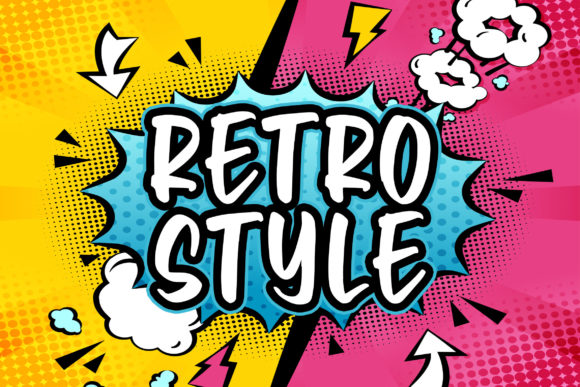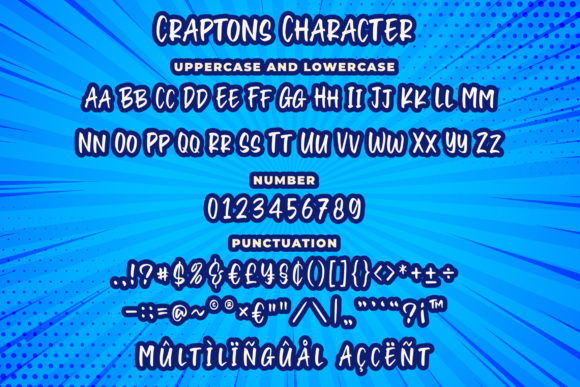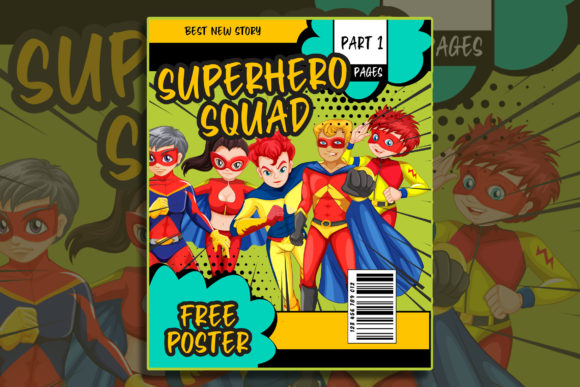
Introduction to Craptons Font
Craptons is a classic retro display font.
Fall in love with its spectacular look .
Why Choose Craptons Font?
Craptons Font offers exceptional quality and versatility, making it a valuable addition to your design toolkit. Whether you’re creating for personal projects or commercial use, Craptons Font delivers professional results.